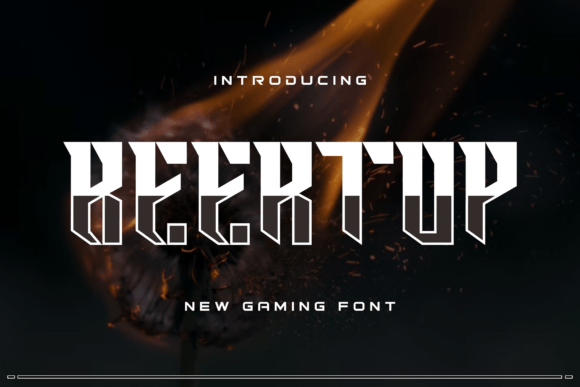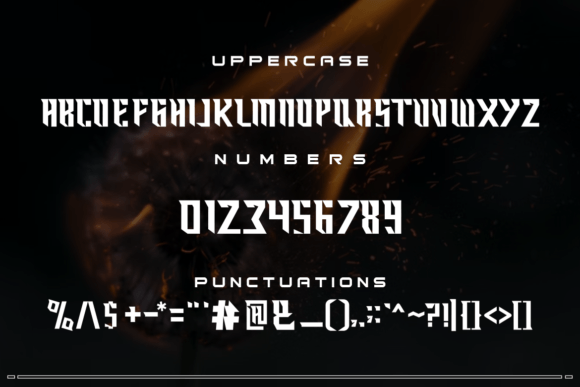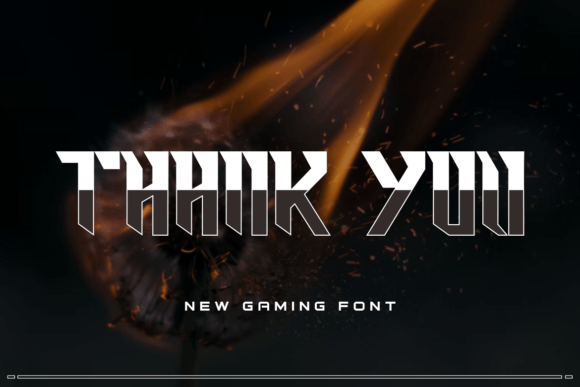
Beertop
Beertop: A Futuristic and Elegant Slab Serif Font
Beertop is a futuristic slab serif font that combines beautiful, classy, elegant, and modern design elements. This versatile typeface is perfect for various projects, from signatures and stationery to branding and packaging design. Moreover, it uniquely displays both masculine and feminine qualities, making it especially suitable for fashion-related branding and editorial design.
Key Features of Beertop
• Futuristic Design: Offers contemporary appeal with forward-thinking elements.
• Elegant Style: Brings sophistication to designs.
• Versatile Character: Balances masculine and feminine qualities.
• Modern Appeal: Features fresh and current design elements.
Best Uses for Beertop
Thanks to its versatile characteristics, Beertop works especially well for:
When using Beertop in your designs, keep these tips in mind:
• Try it for headlines or display text to showcase its futuristic elegance.
• Use different sizes to highlight its modern features.
• Pair with simpler fonts for body text to create balance.
• Let its dual nature enhance both masculine and feminine designs.
To sum up, Beertop is an excellent choice for designers seeking a futuristic and elegant slab serif font. Its versatility makes it perfect for a wide range of projects. Whether you’re creating fashion branding, designing editorial content, or developing modern marketing materials, Beertop offers the perfect blend of contemporary style and timeless sophistication.
Furthermore, Beertop’s distinctive design allows it to shine in contexts where both modernity and elegance are key. For instance, from fashion-related materials to editorial designs, this font can elevate your projects with its refined style. Also, its unique ability to balance masculine and feminine qualities makes it particularly versatile for diverse design needs.
In conclusion, Beertop truly captures the essence of futuristic elegance in slab serif typography. Its versatility across different applications shows how well it can serve various creative needs. Therefore, for those wanting to add a touch of contemporary sophistication to their work, Beertop can enhance any design with its unique style. Ultimately, it’s perfect for designers aiming to make an elegant, modern impact across a wide range of creative projects.